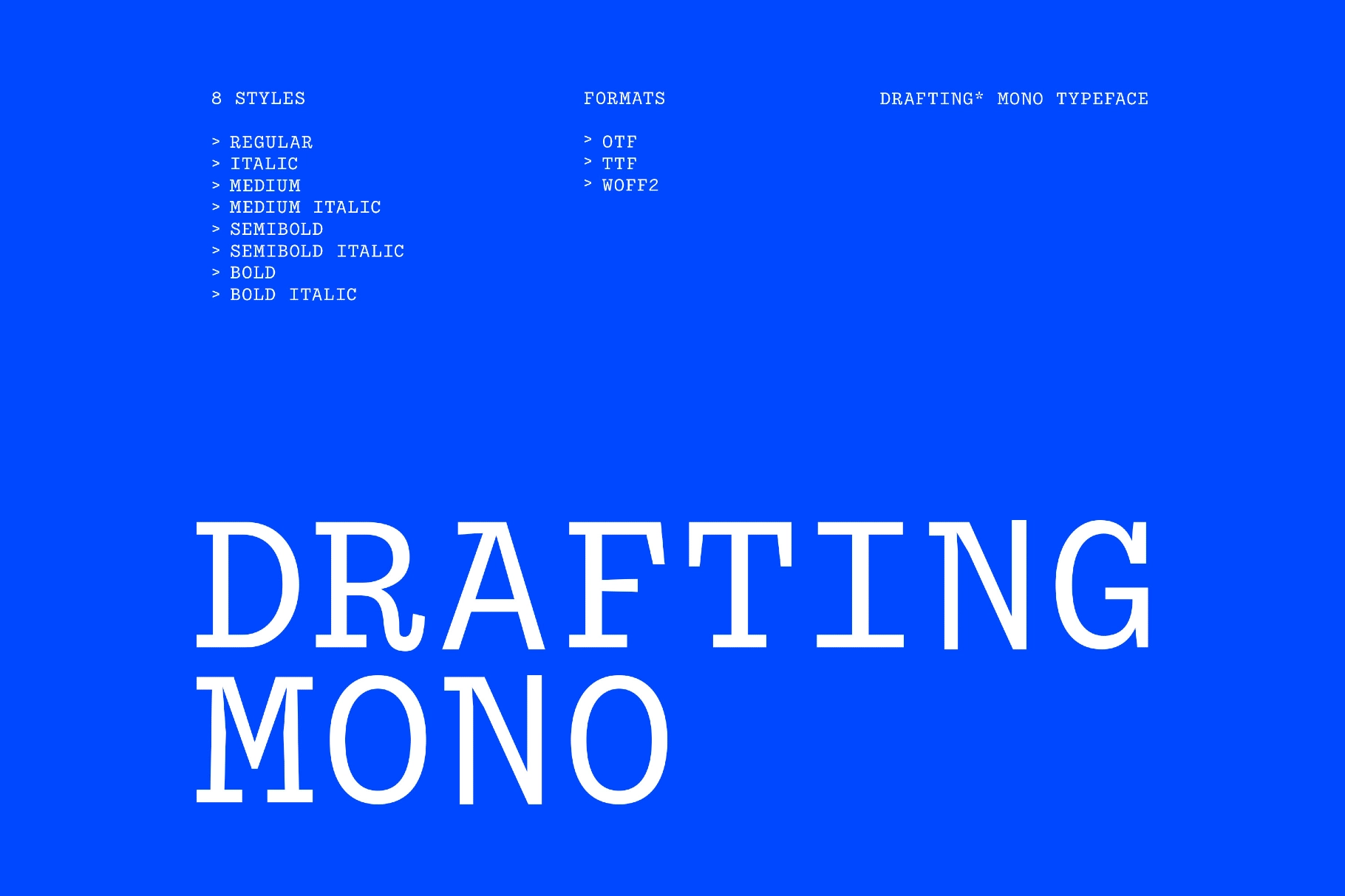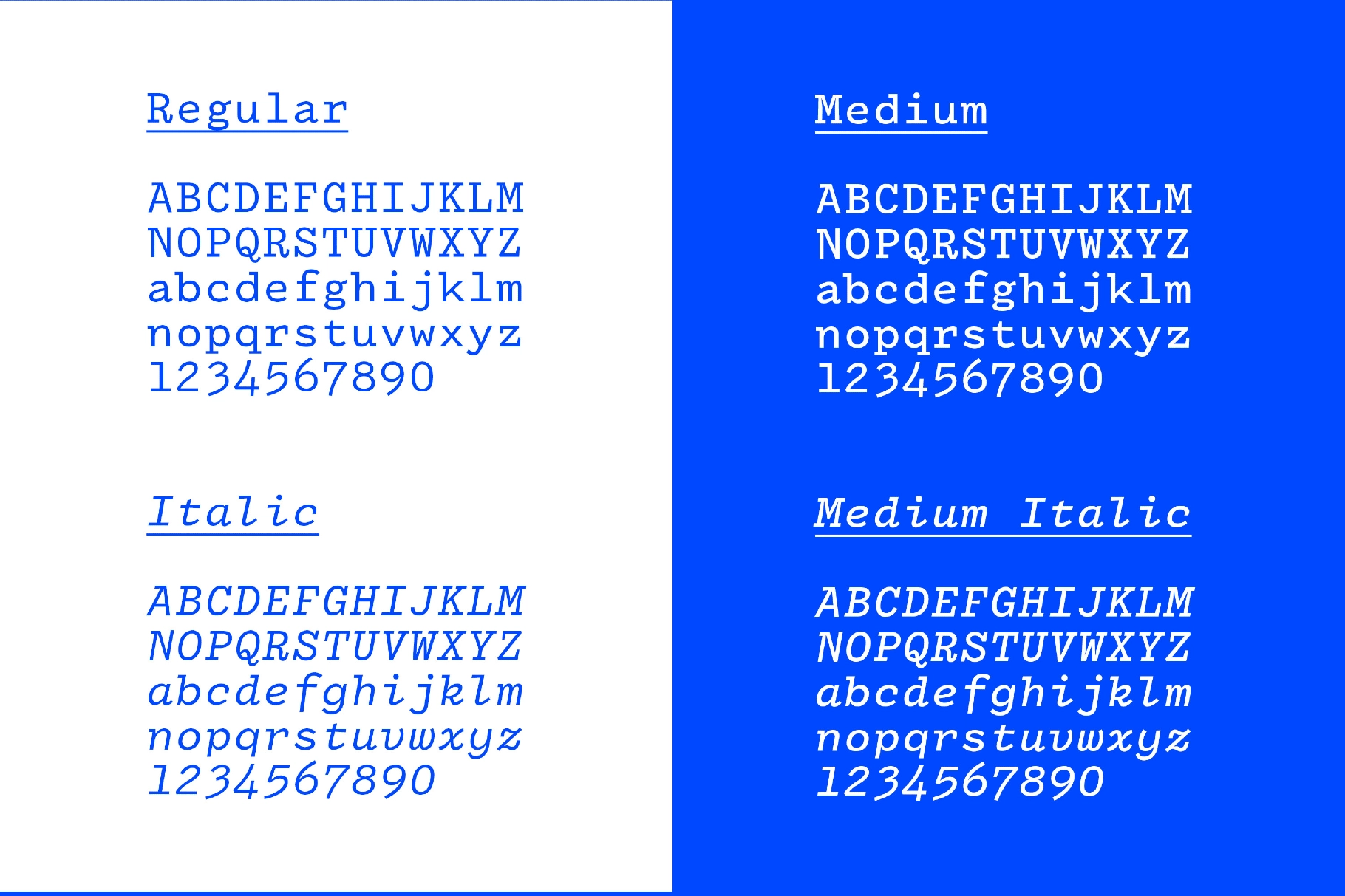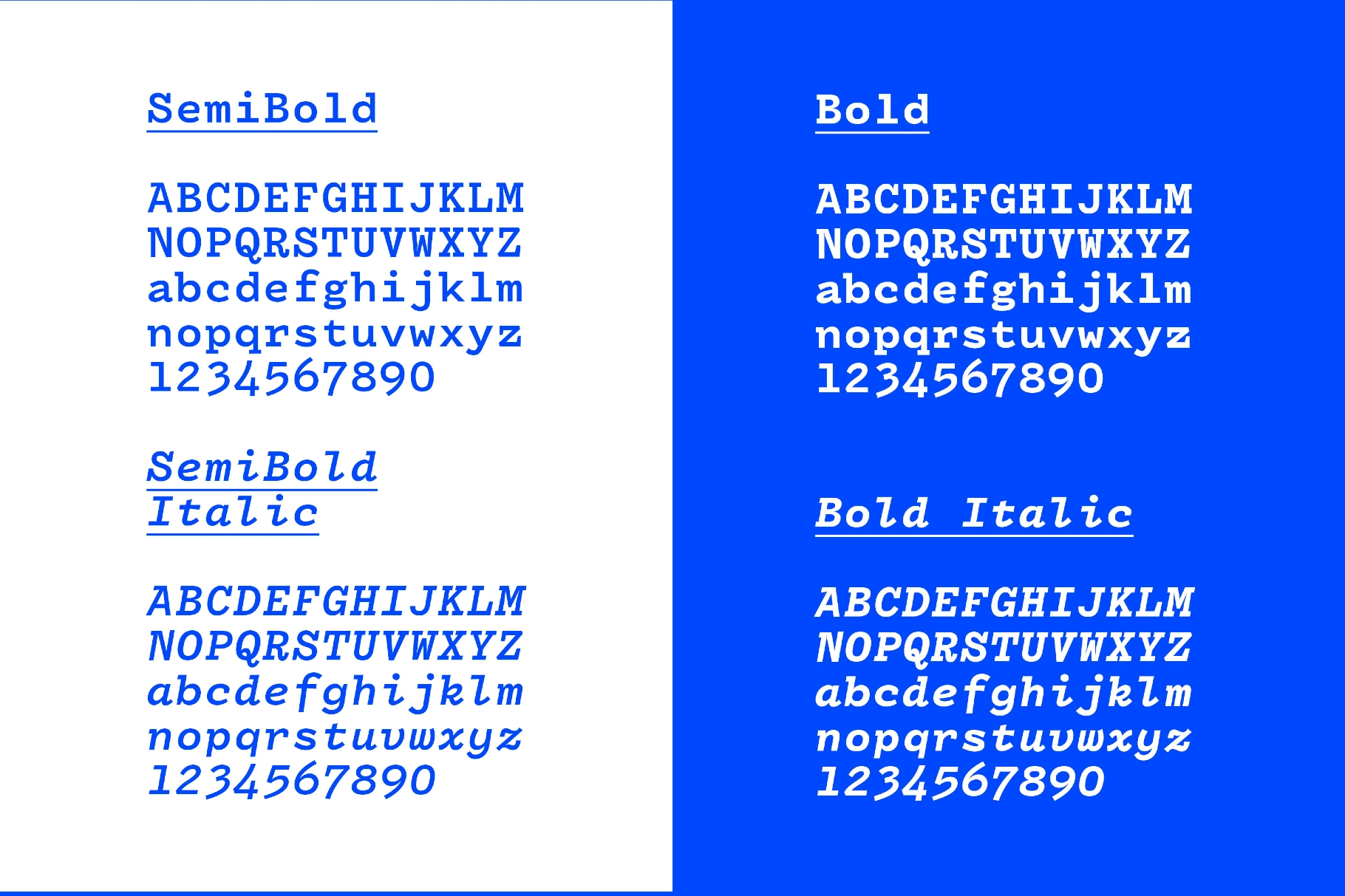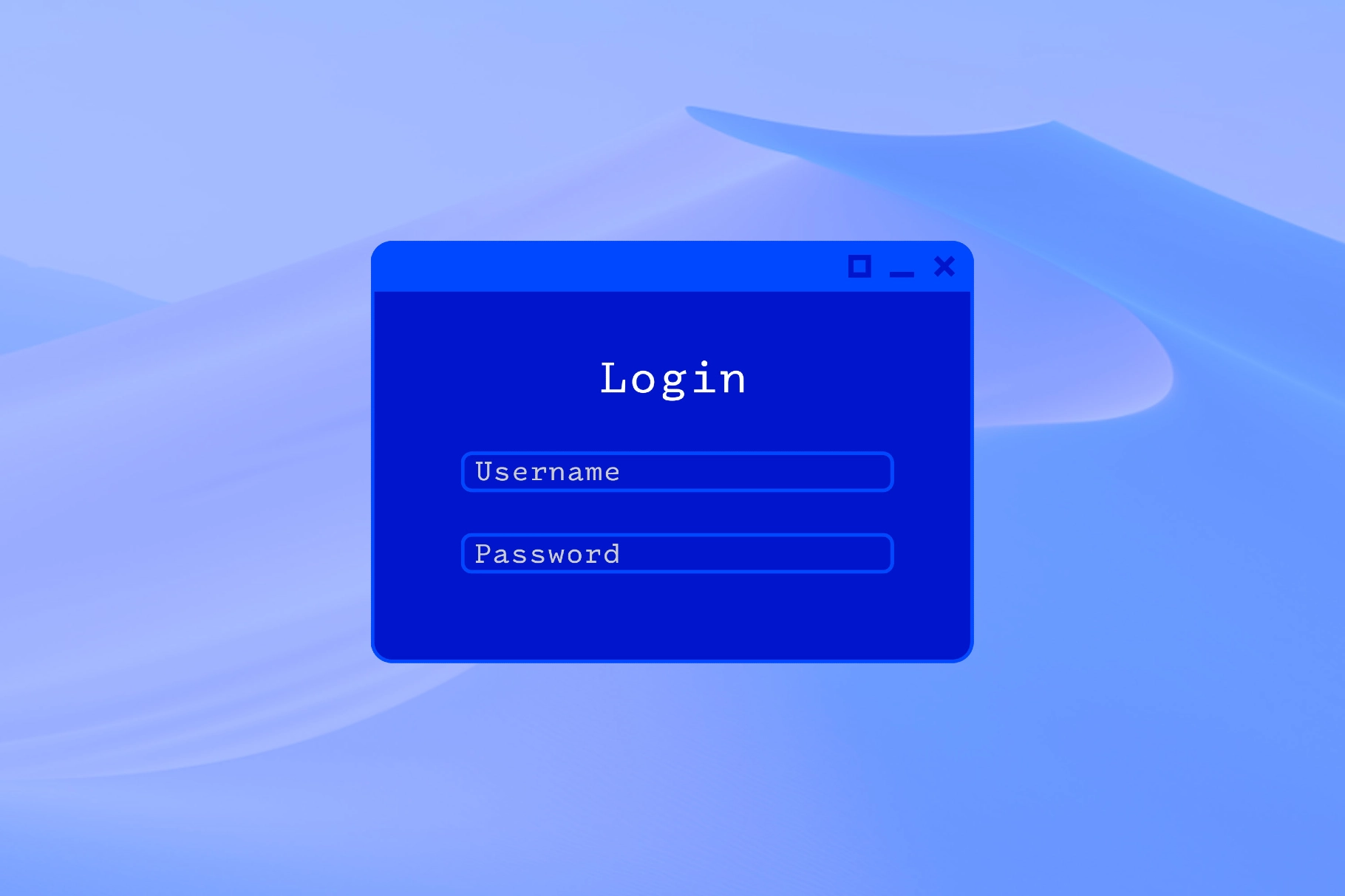
Drafting Mono Typeface
Drafting is a monospaced slab serif with a studio-desk attitude. Its slender stems, squared terminals, and mechanical curves mimic technical lettering. Add here clean spacing to keep long strings legible.
This font fits for UI mockups, terminal-style interfaces, prototypes, developer tools, as well as editorial sidebars, footnotes, and data callouts. It also works for diagrams, architectural decks, pitch documents, labeling systems, and infographics.
Included: uppercase and lowercase letters, numbers, punctuation and symbols, extra symbols plus multilingual support, international characters, and extended support for mathematical symbols and metrics. The font covers 14 styles: Bold, SemiBold, Medium, Regular, Light, ExtraLight, and Thin with matched Italic.